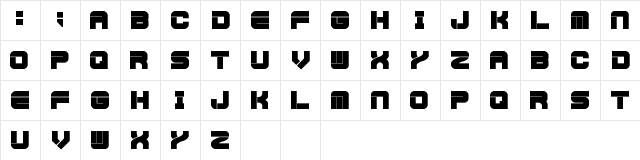
Futura Original Regular
| Foundry | Spacefish Productions |
| Designer | Martin Holm |
Design Context for Futura Original Typeface
Futura Original channels digital-age aesthetics through its sharp, structured letterforms — ideal for brands that want to signal innovation.